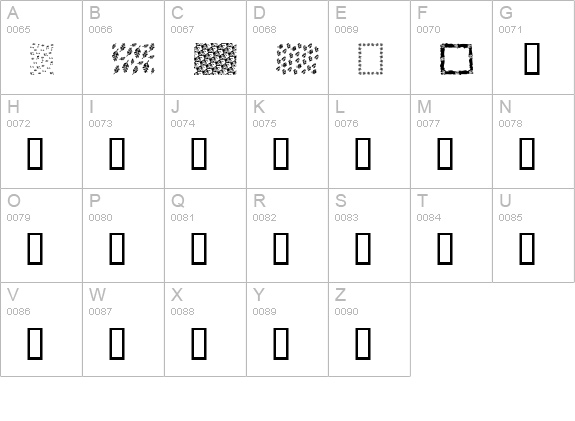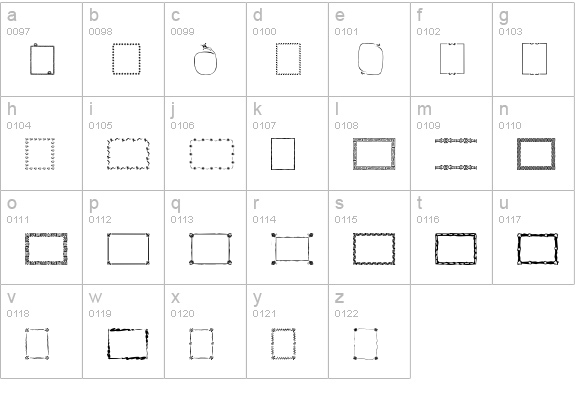
Frames and Backgrounds Font Details
The Frames and Backgrounds font is a versatile and creative typeface designed to add a touch of elegance and uniqueness to your projects. With a wide range of decorative frames and backgrounds incorporated into each character, this font offers endless possibilities for creating stunning designs that stand out. Whether you're working on invitations, posters, social media graphics, or any other creative project, Frames and Backgrounds font will help you effortlessly elevate your work to the next level. The intricate details and ornate elements of this font make it perfect for adding a touch of sophistication and charm to your designs. Best of all, Frames and Backgrounds font is available for free download at FontsMarket.com. So go ahead and unleash your creativity with this beautiful and versatile font that will surely captivate your audience and make your designs shine.